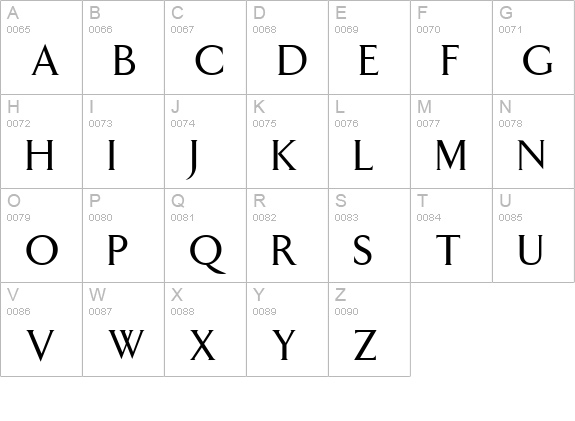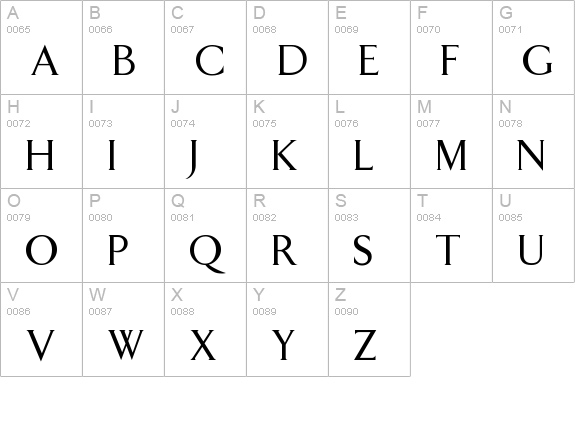
Arrow Regular is the standard, neutral variant in the Arrow typeface family \xE2\x80\x94 well suited to general body text, paragraphs, and standard typographic work.
Arrow Regular is a modern and versatile font that strikes the perfect balance between professionalism and creativity. With its clean lines and stylish appeal, this font is ideal for a wide range of design projects, from branding to advertising and everything in between. The simplicity of Arrow Regular makes it easy to read and adds a touch of elegance to any text. What's even better is that Arrow Regular is available for free download at FontsMarket.com. This means you can access this sleek and sophisticated font without any cost, making it a valuable addition to your font collection. Whether you're a designer looking for a new typeface or a business owner in need of a fresh look for your marketing materials, Arrow Regular is the perfect choice. Download it today and elevate your designs with this stunning font.